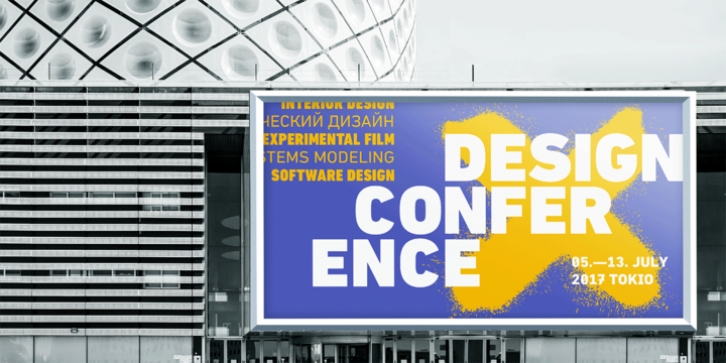
The name DIN refers to the Deutsches Institut für Normung (in English, the German Institute for Standardization). The typeface began life as the DIN Institute’s standard no. DIN 1451, published in 1931. It contained several models of standard alphabets for mechanically engraved lettering, hand-lettering, lettering stencils and printing types. These were to be used in the areas of signage, traffic signs, wayfinding, lettering on technical drawings and technical documentation. Rooted in earlier designs for Germany’s railway companies, the alphabets were based on geometric shapes in order to be easily reproducible using compass and ruler.